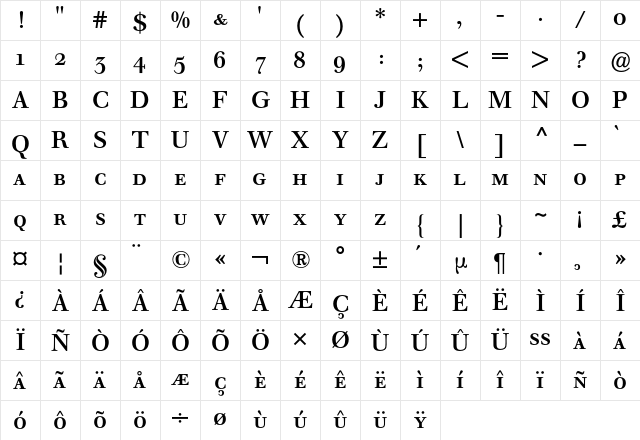
Walbaum Standard Expert BQ Regular
Walbaum Standard Expert BQ Regular Family
Walbaum Standard Expert BQ Regular
Walbaum Standard Expert BQ Regular Font Preview
Walbaum Standard Expert BQ Regular Preview
Walbaum Standard Expert BQ Regular Character Map
Complete Walbaum Standard Expert BQ Regular glyph index. Displaying only characters natively supported by Walbaum Standard Expert BQ Regular font.
Design Context for Walbaum Standard Expert BQ
Walbaum Standard Expert BQ is a composed and adaptable typeface that performs quietly and consistently across a wide range of design contexts.